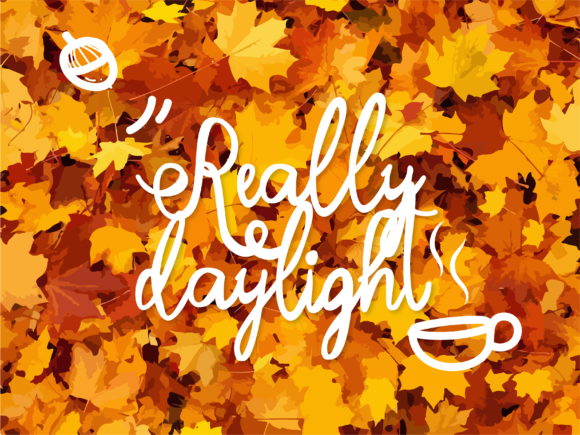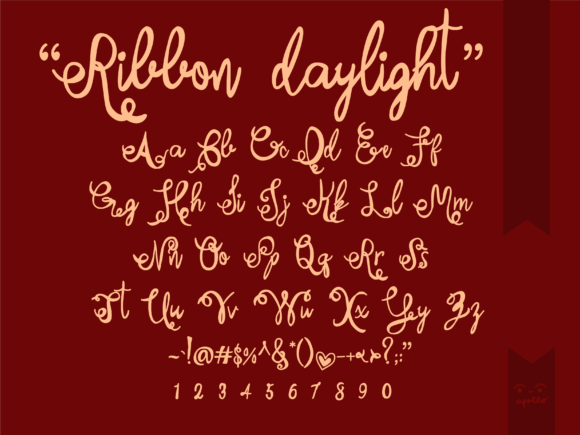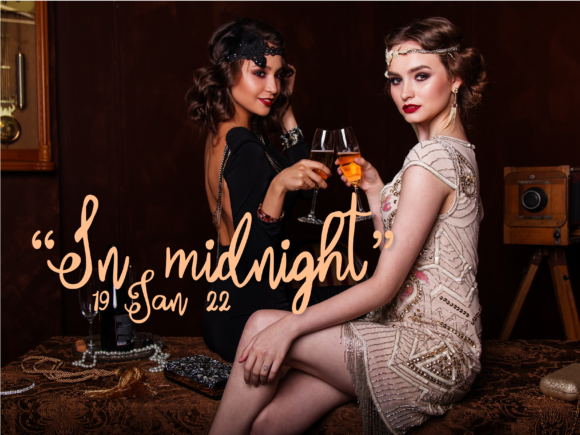
Introduction to Ribbon Daylight Script Font
Ribbon Daylight Script is inspired by ribbon stokes and swirls on each character.
Key Features of Ribbon Daylight Script Font